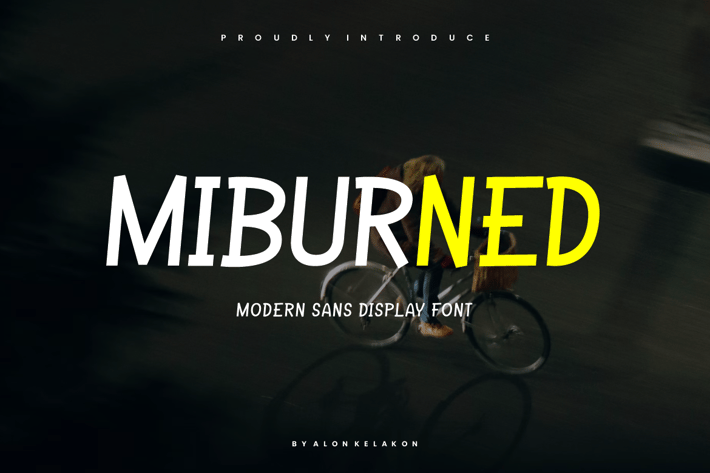
Miburned - Modern Sans Font
Miburned Font is unique . Ready to use for your design like labeling, movie sceen, poster, movie title, gigs, album covers, logos, and much more.